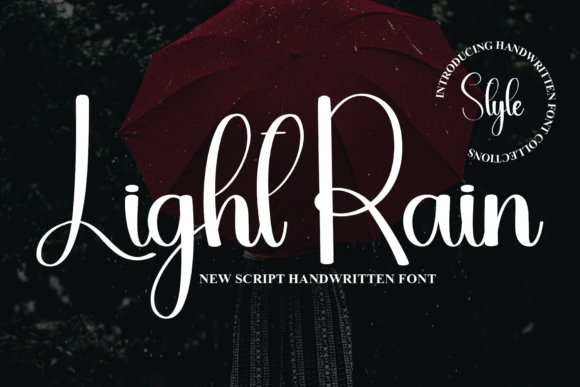
Unleash your creativity with Light Rain Font, a captivating script font that adds a touch of whimsy to your designs. Designed by the talented William Jhardy, this irresistible font embodies a carefree spirit and playful charm, making it the perfect choice for those seeking a unique and cheerful font.
With its delicate strokes and enchanting curves, Light Rain Font dances across the page, bringing life to your words. Its charming imperfections and hand-drawn aesthetic evoke a sense of warmth and authenticity, creating designs that resonate with your audience. Whether you're crafting wedding invitations, greeting cards, social media posts, or product packaging, Light Rain Font is sure to leave a lasting impression.
Step into a world of endless possibilities with Light Rain Font. Its versatile nature makes it an ideal companion for a wide range of projects. From playful logos and eye-catching headlines to elegant branding and enchanting illustrations, this font effortlessly adapts to your creative vision. Let your imagination soar as you explore the boundless potential of Light Rain Font, transforming your designs into captivating works of art.
Light Rain Font is not just a mere font; it's an expression of joy, a burst of color, and a dash of magic. It's the perfect font for those who dare to be different, who embrace their individuality, and who seek to create designs that stand out from the crowd. With Light Rain Font, your creativity knows no bounds.